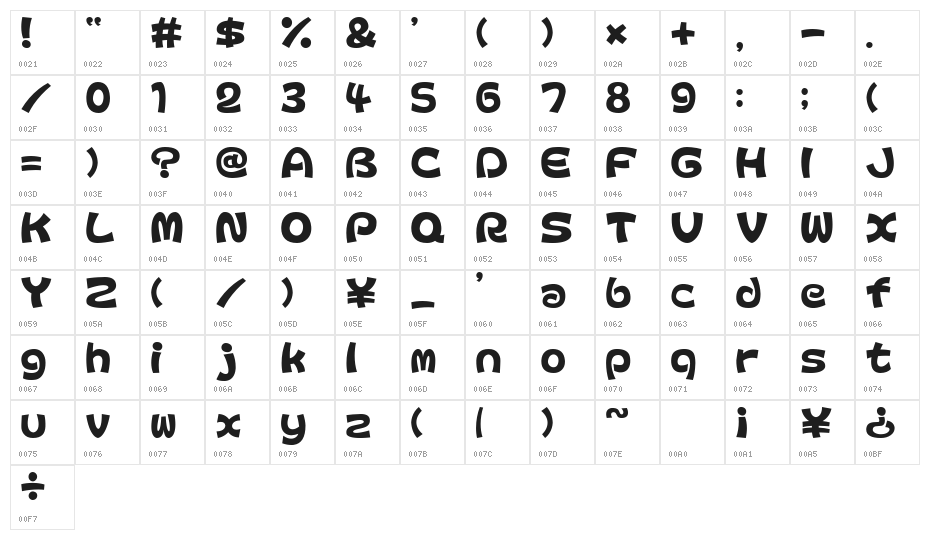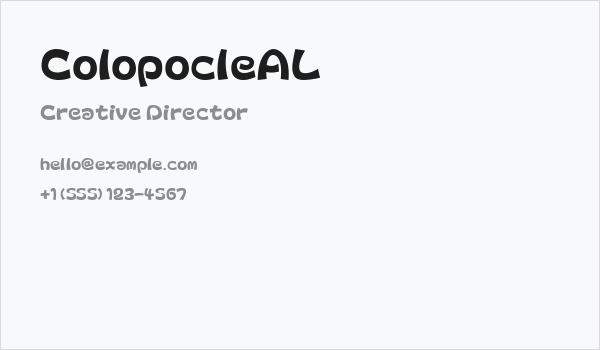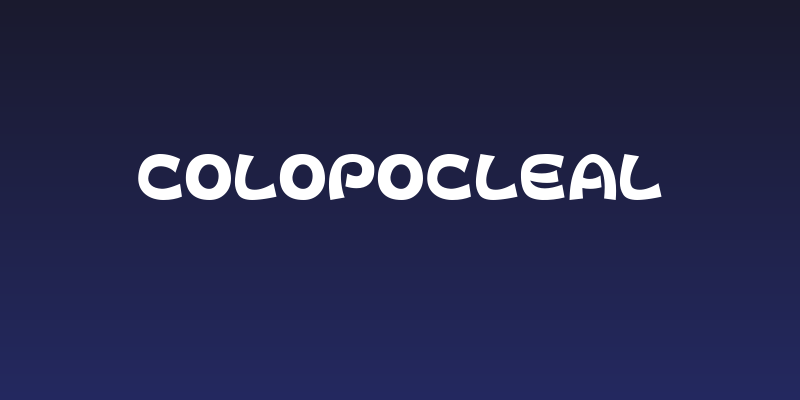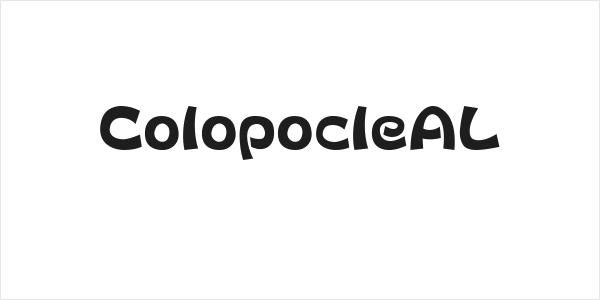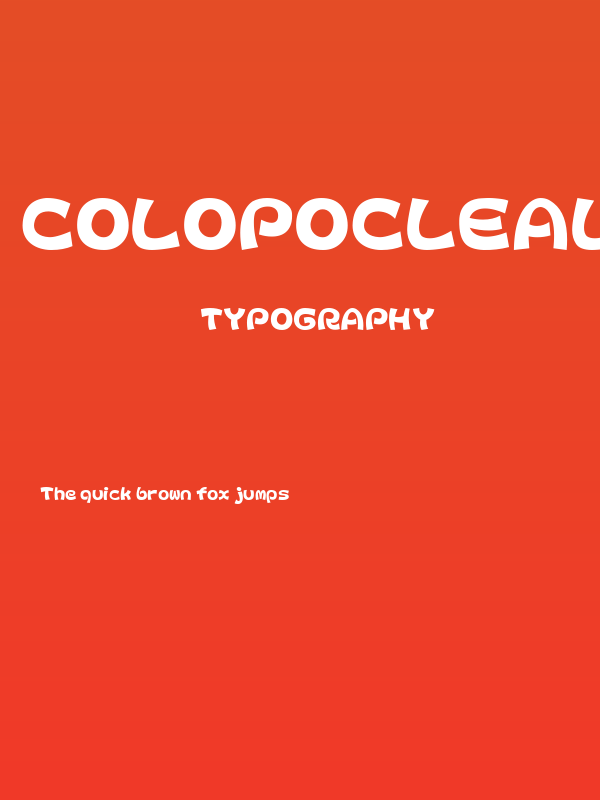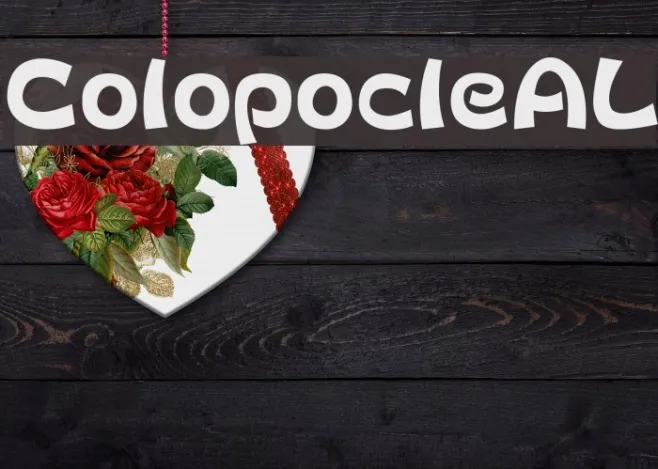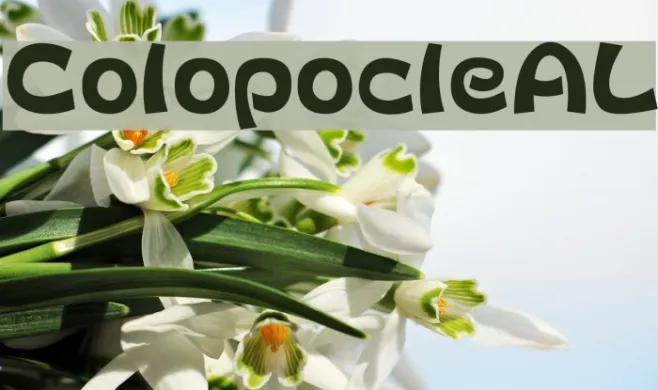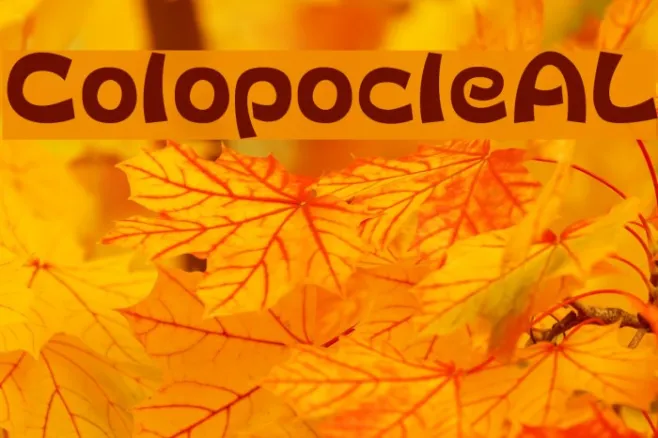
ColopocleAL Font
ColopocleAL Description
This playful and bold typeface features a unique, whimsical design with a strong presence. The characters are rounded and slightly irregular, giving them a hand-drawn appearance. The uppercase and lowercase letters maintain a consistent style, with exaggerated curves and a lively rhythm. The numerals and special characters follow the same playful aesthetic, making them ideal for creative projects. The font's bold weight and wide character spacing contribute to its eye-catching and approachable look, perfect for designs that require a fun and informal touch.